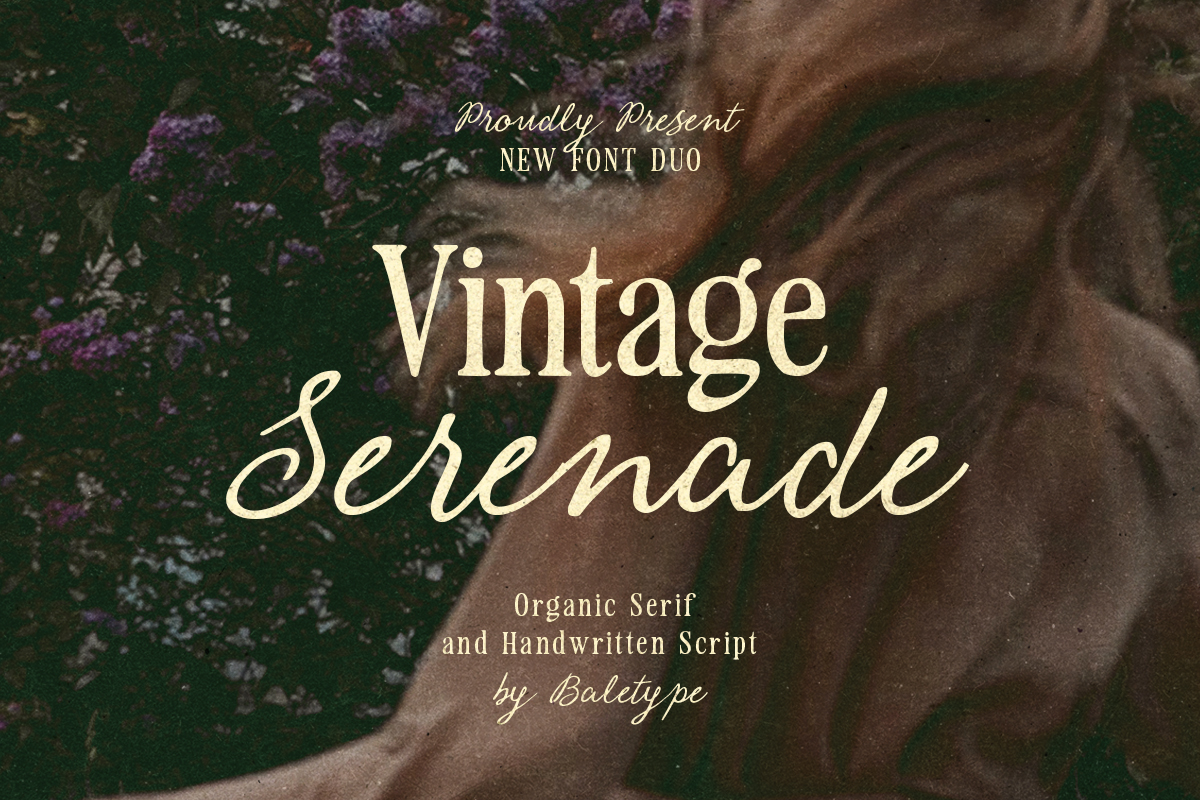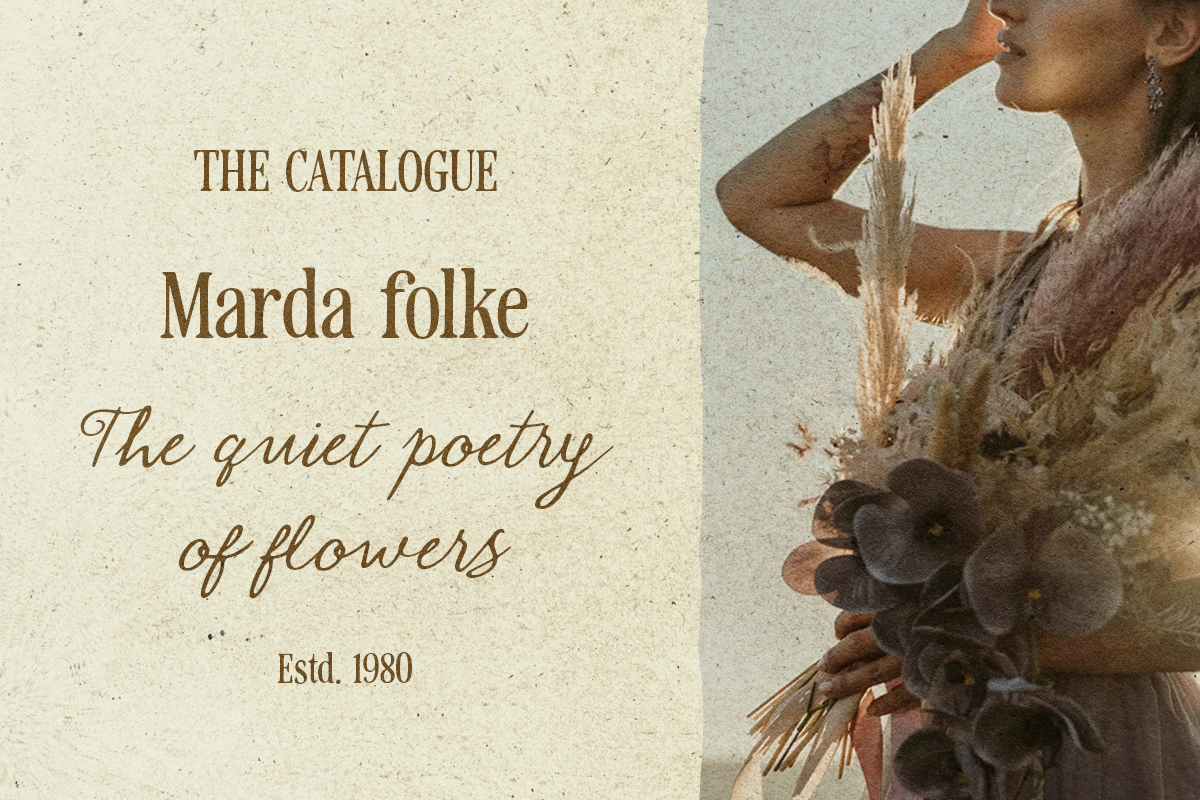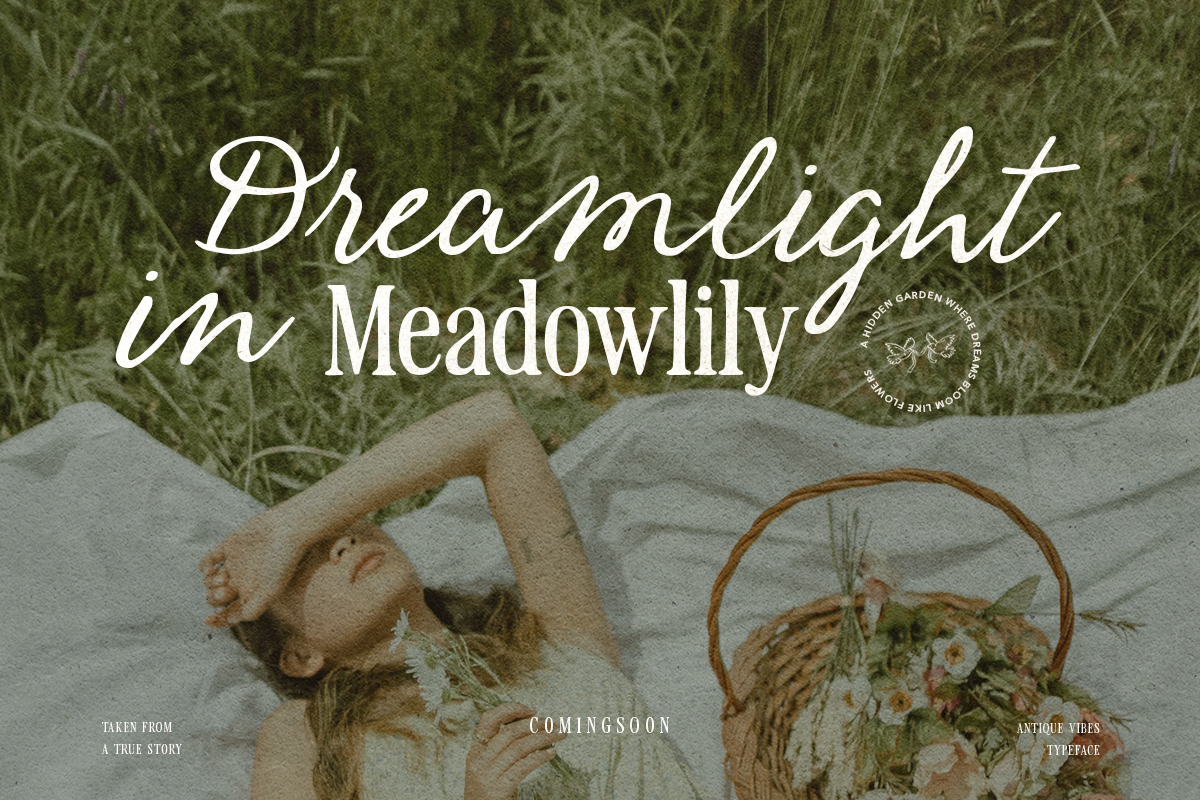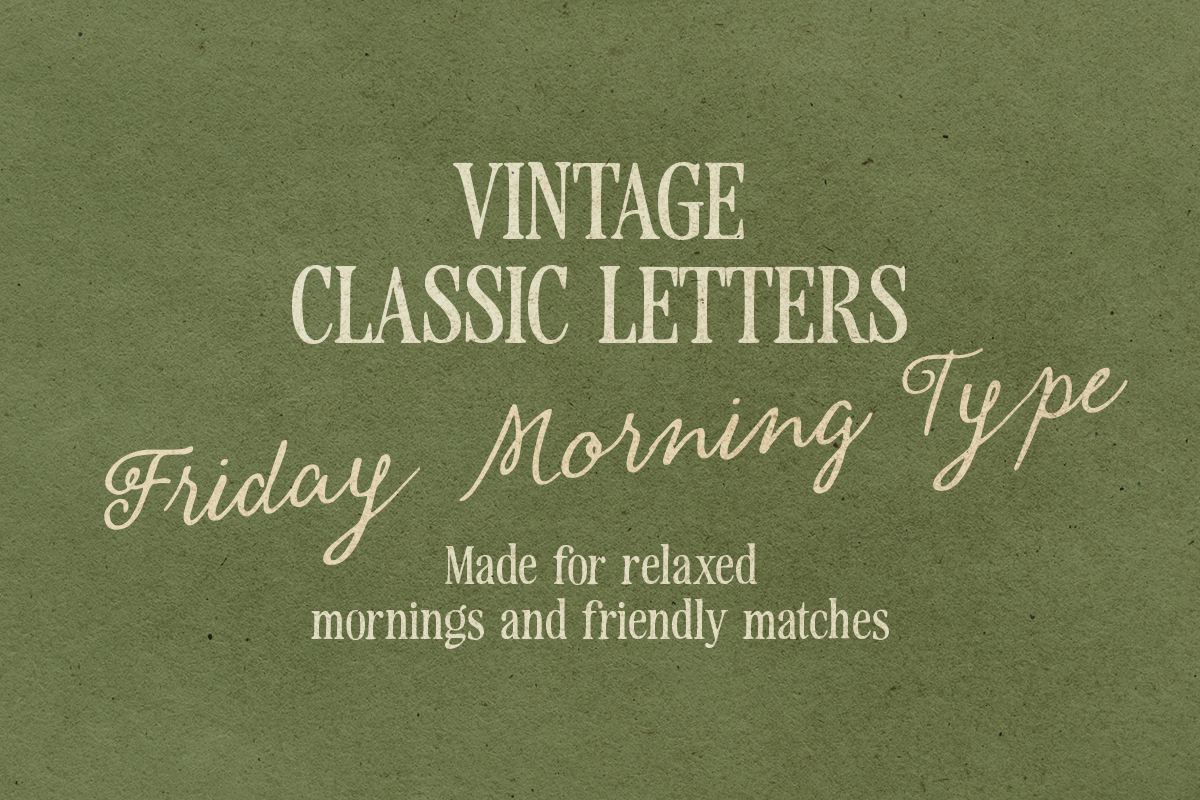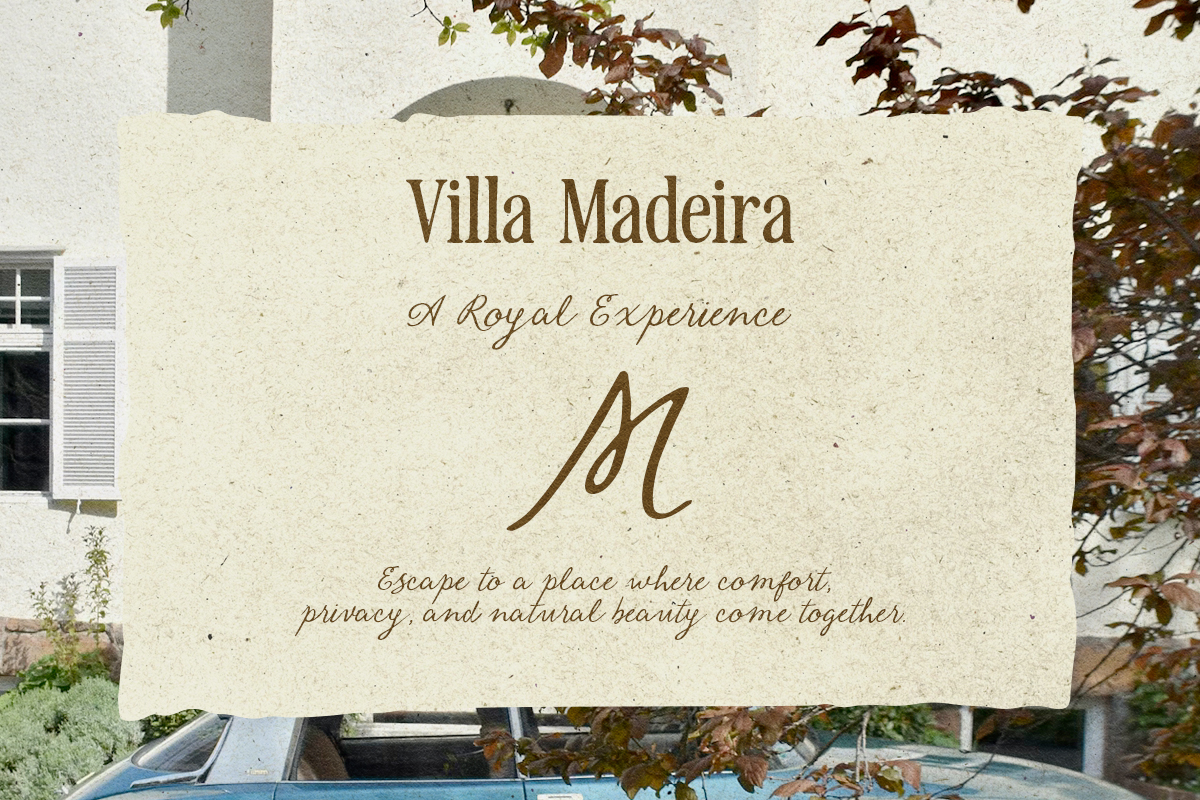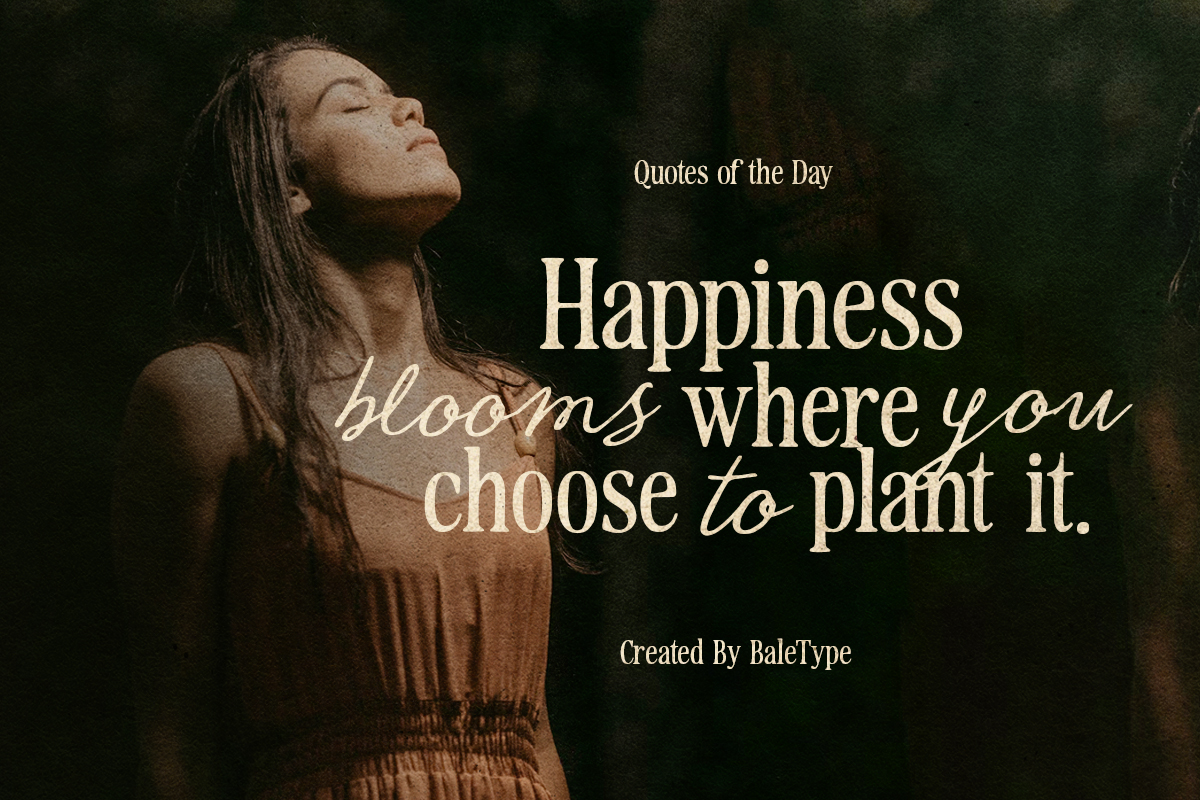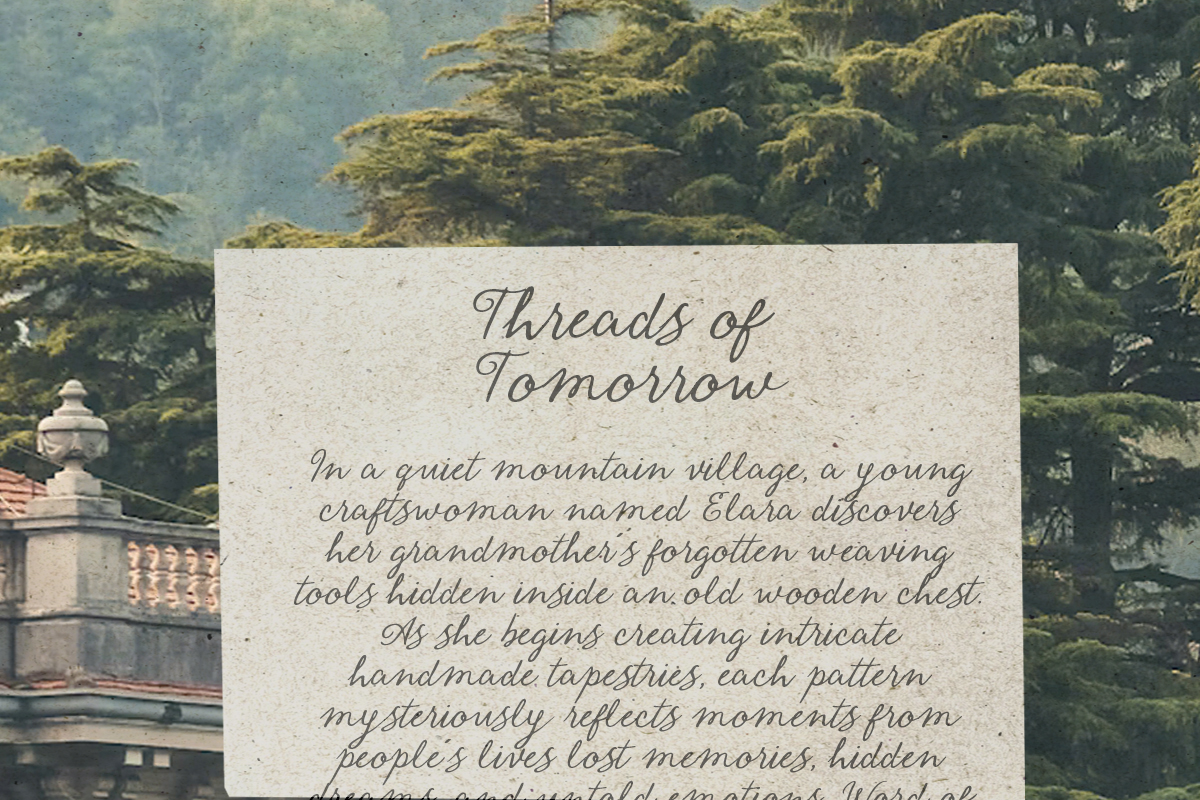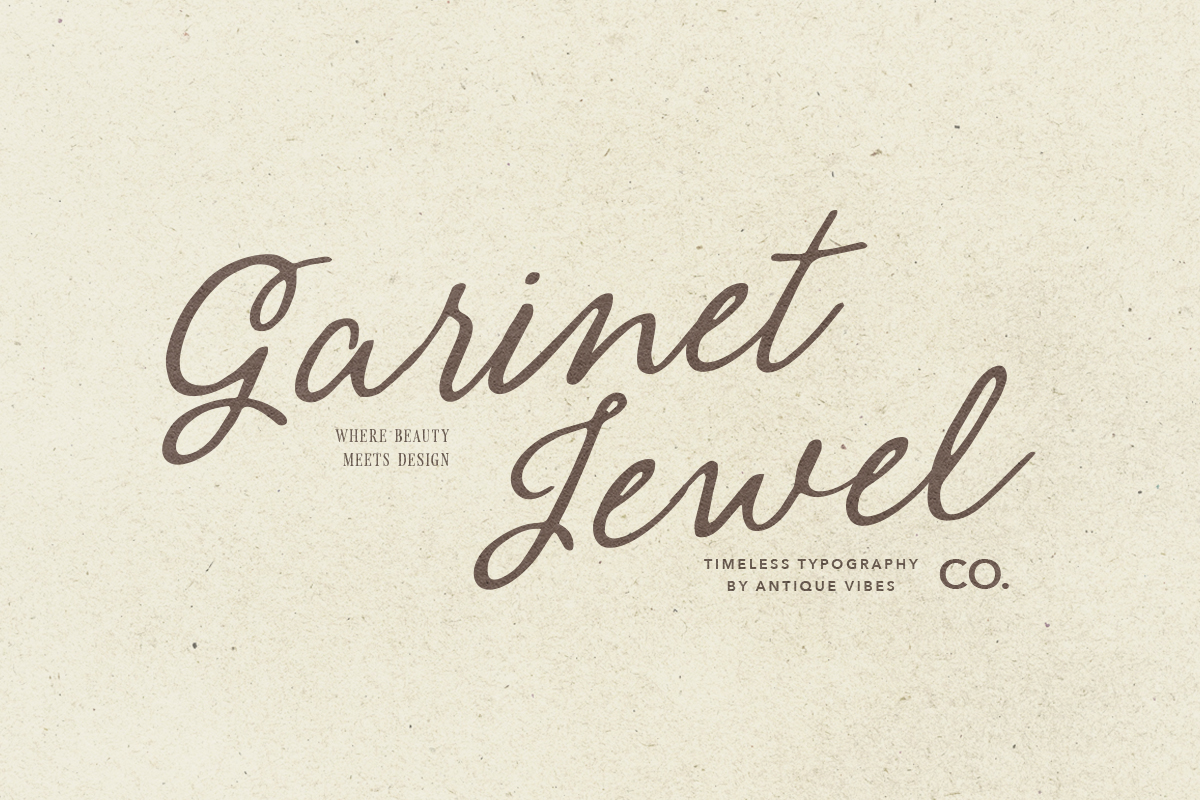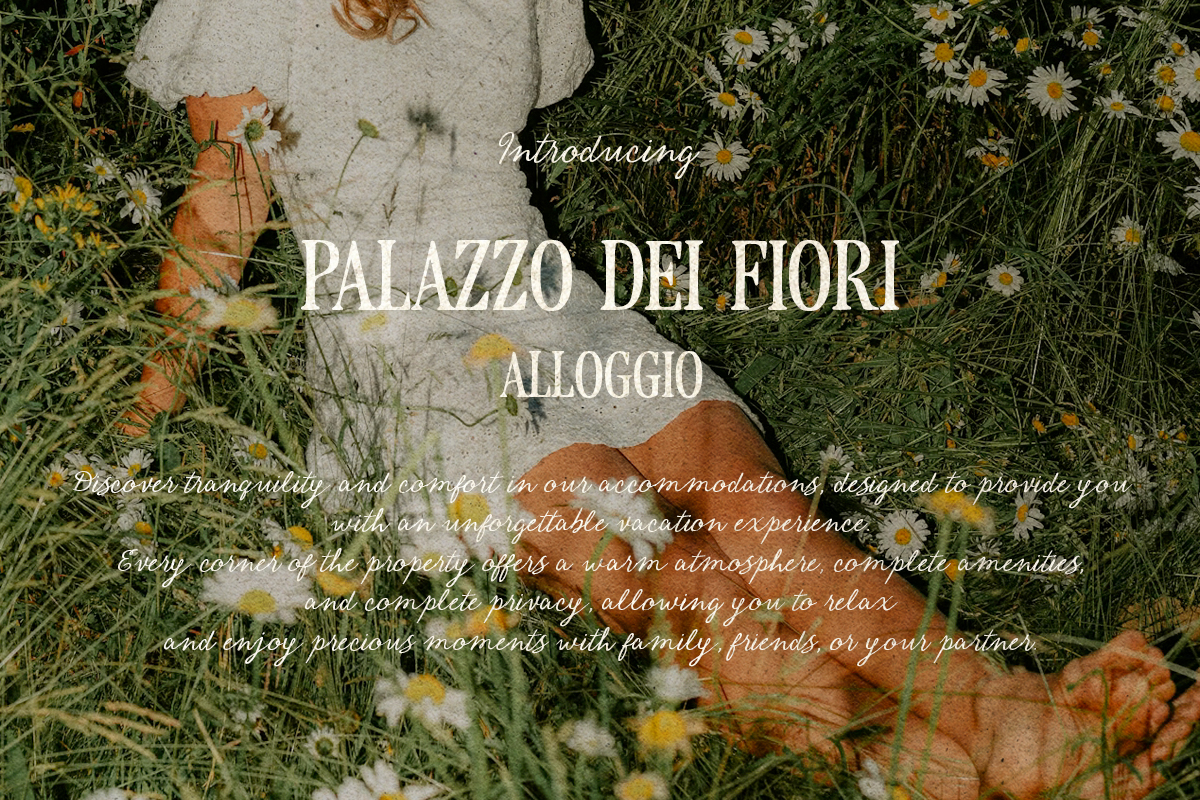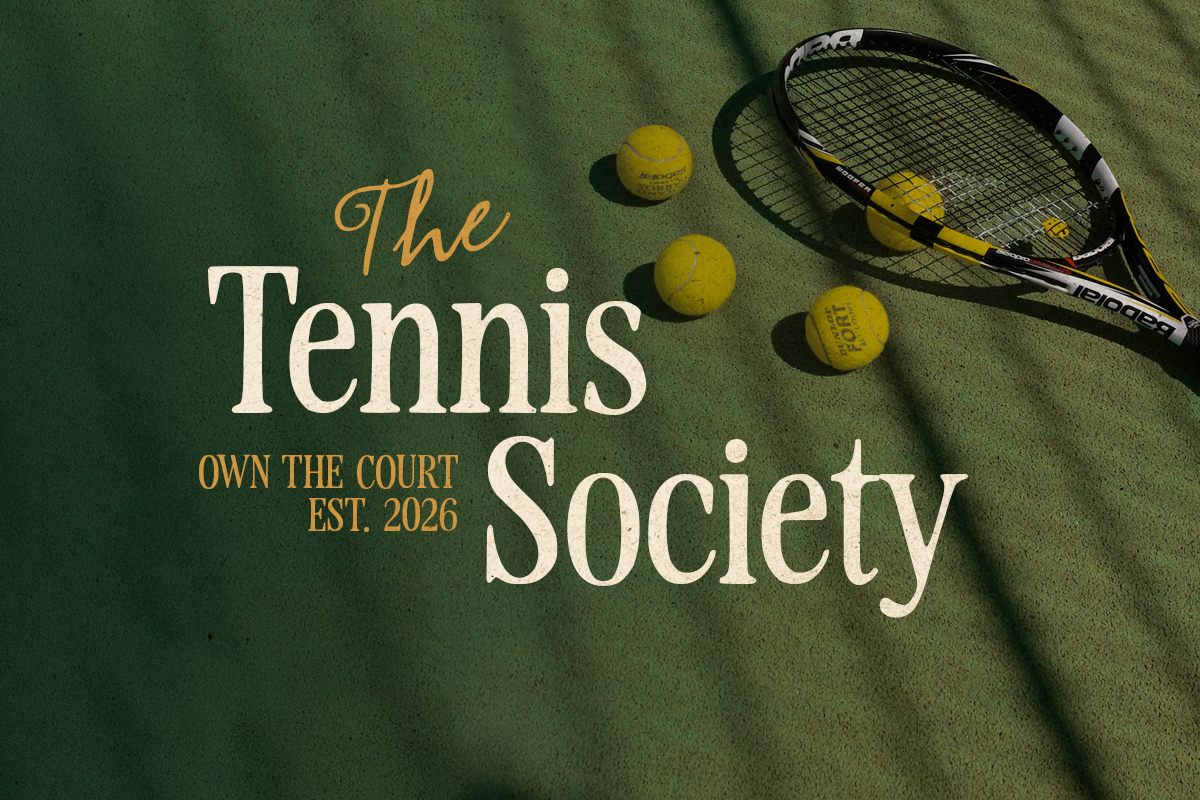
Vintage Serenade is an organic font duo including hand-lettered serif and handwritten script. You can use this font for any purposes such as wedding invitations, branding, logotype, quote, and any project that need to look natural with hand touch. With bunch of ligatures, the script font will make your writing even more flowing and naturally handwritten. This font duo also support multi language.
Vintage Serenade – Organic Font Duo
Vintage Serenade is an organic font duo including hand-lettered serif and handwritten script.